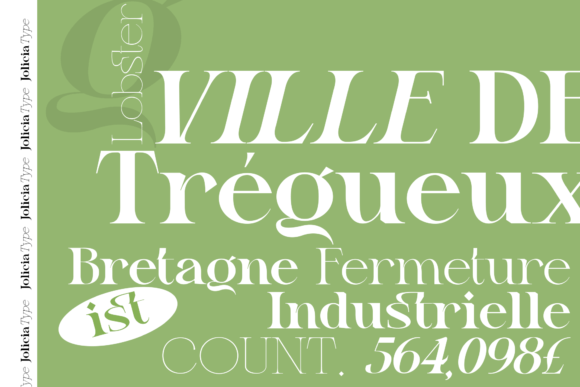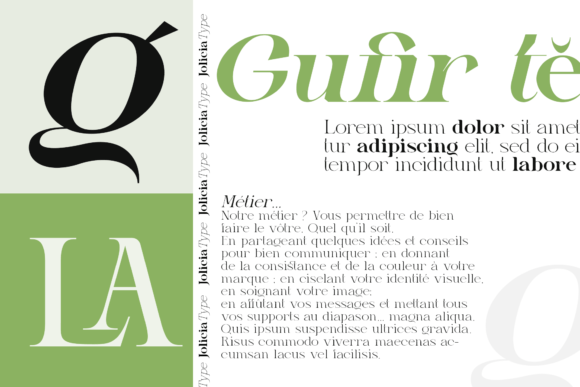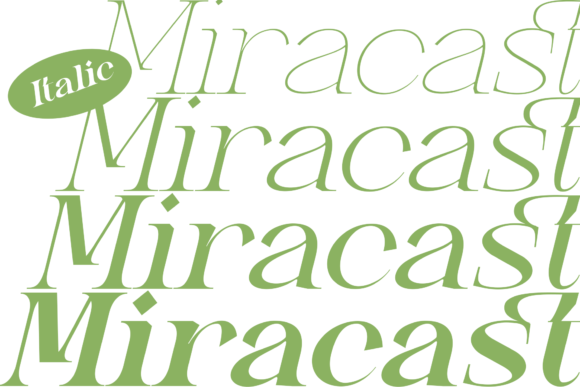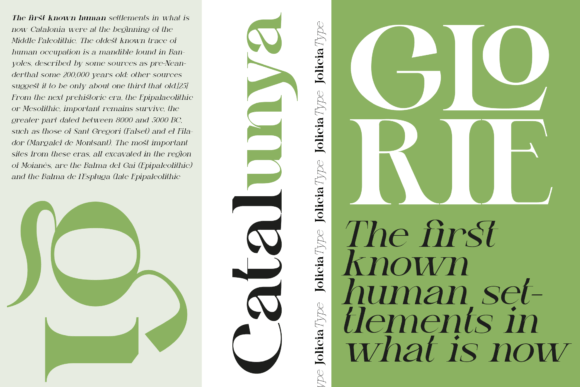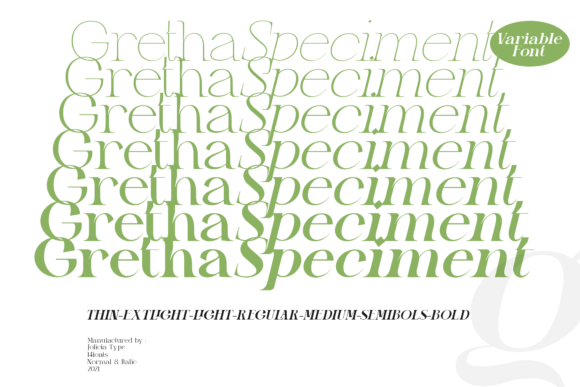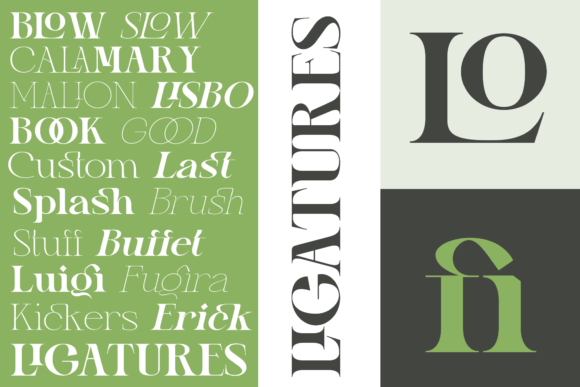
Have you ever stared at a blank page, trying to decide on the perfect font to bring your ideas to life? We’ve all been there. But what if you could unlock a font that not only looks great but also gives you the freedom to customize it to your heart’s content? Welcome to the world of Gretha Font, a modern serif typeface that’s about to become your new best friend.
With Gretha Font, you’re no longer limited by a single, static design. Instead, you can use sliders in programs like Adobe Illustrator to adjust the weight of the letters, creating a range of styles that are uniquely yours. Whether you’re designing a logo, a brochure, or a website, Gretha Font gives you the flexibility to experiment and try new things.
Greta Font Key Features
- Unique Characteristics: Greta Font features a unique, modern design with a mix of geometric and organic elements, giving it a distinctive look.
Gretha Font Review
As a designer, I’ve had the chance to work with Gretha Font, and I must say, it’s a unique and interesting choice. Here are some of my thoughts.
- Beautifully crafted ligatures: Gretha Font has some of the most beautiful ligatures I’ve seen in a long time. They add a level of sophistication and elegance to the font.
- High-quality character set: The font has a comprehensive character set, making it suitable for a wide range of projects.
- Unique flair: Gretha Font has a distinct style that sets it apart from other fonts. It’s perfect for designers looking for something unconventional.
- Limited support: Gretha Font may not be supported by all operating systems or software, which can be a limitation for designers working on cross-platform projects.
- Not ideal for body text: While Gretha Font is perfect for headings and titles, it may not be the best choice for body text due to its unique style and character set.
- May require customization: Depending on the project requirements, Gretha Font may need to be customized to fit the design needs, which can be time-consuming.
Overall, Gretha Font is a great choice for designers looking for a unique and elegant font. While it may have some limitations, its beautifully crafted ligatures and high-quality character set make it a great addition to any design project.
Getting the Most Out of Gretha Font
To get the most out of Gretha Font, consider the following tips:
- Experiment with different font sizes and styles to achieve a unique look.
- Combine Gretha Font with other fonts to create a visually appealing contrast.
- Use Gretha Font to create a consistent brand identity across multiple design projects.
Gretha Font is commonly used in:
- Graphic design projects, such as logos, brochures, and business cards.
- Web design projects, such as website headers and footers.
Alternatives to Gretha Font for Designers
Playfair Display Font is an elegant, high-end serif font perfect for creating luxurious and sophisticated designs. It’s ideal for use in titles, headings, and other areas where you want to add a touch of sophistication. Compared to Gretha Font, Playfair Display Font has a more refined and luxurious feel, making it suitable for high-end branding and advertising.
Great Vibes Font is a beautiful, elegant script font that’s perfect for creating a sense of warmth and approachability. It’s ideal for use in titles, headings, and other areas where you want to add a touch of personality and flair. Compared to Gretha Font, Great Vibes Font has a more flowing and cursive feel, making it suitable for use in creative and artistic designs.